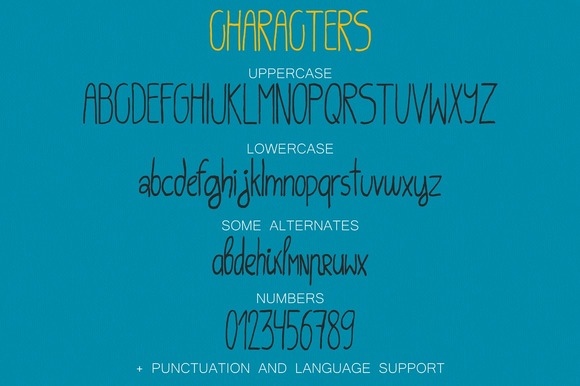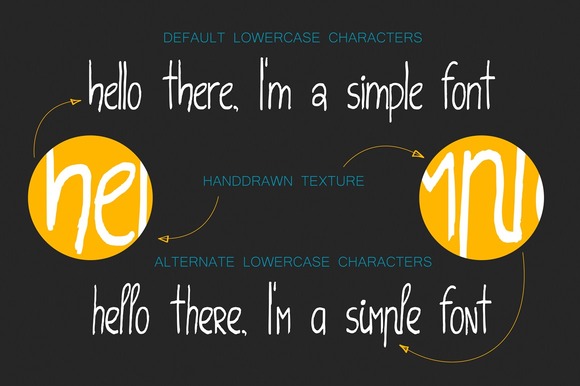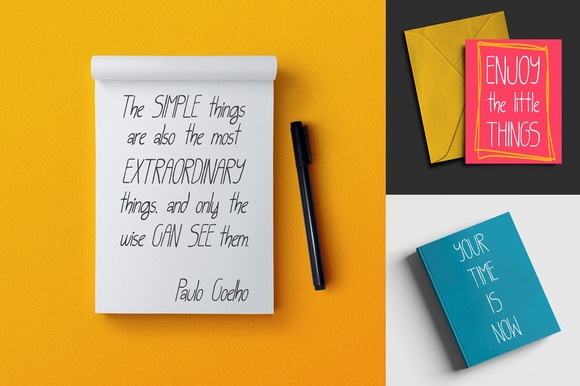
Introduction to Prosto Font
Have you ever stumbled upon a beautifully designed project that made you stop and take a closer look? Maybe it was a greeting card with a handwritten message that added a personal touch, or a restaurant menu with a font that screamed ‘unique’. For designers, those moments are a treasure trove of inspiration, and the Prosto Font is one such gem.
Named after the Russian word ‘Simply’ (Prosto), this free download font is a high-quality design resource that’s perfect for any creative project that requires a touch of personality. From greeting cards and invitations to restaurant menus and advertising booklets, the Prosto Font is a versatile choice that can elevate your designs to the next level.
With its simple handwritten sans serif style and PUA encoded alternates, this font is a valuable addition to any designer’s toolkit. And the best part? It’s available for free download, making it an accessible design resource for anyone looking to add a creative touch to their projects.
Key Features of Prosto Font
- High-quality design resource for creative projects, offering a unique and stylish look.
- Features a transparent background, allowing for seamless integration with any design element.
- Perfect for use in graphic design, digital art, and other creative projects where a high-quality font is essential.
Honest Review: Prosto Font
I recently came across the Prosto Font, and I must say it’s a great addition to my design resource library. As a designer, I’m always on the lookout for high-quality fonts that can elevate my creative project. The Prosto Font definitely fits the bill.
What works well: ✨ The font is highly versatile, making it perfect for various design projects, from logos to digital products. The transparent background option is a nice touch, allowing for seamless integration with other design elements. I also appreciate the fact that it’s available for free download, making it a valuable resource for designers of all levels.
However, there are a few limitations: ⚠️ The font may not be as suitable for complex typography projects, as it can become difficult to read at smaller font sizes. Additionally, some users may find the font a bit too simple, lacking the sophistication of more ornate fonts.
Overall, I’m impressed with the Prosto Font. It’s a solid choice for designers looking for a high-quality, easy-to-use font. While it may not be perfect, its versatility and free download option make it a valuable addition to any design resource library.
- Highly versatile font suitable for various design projects
- Transparent background option for seamless integration
- May not be suitable for complex typography projects
- Some users may find the font too simple
Prosto Font
Prosto Font is a versatile and free download design resource ideal for creative projects. Its high-quality transparent background makes it perfect for various applications.
Tips for Getting the Most Out of Prosto Font
To maximize the benefits of Prosto Font, experiment with different font sizes, colors, and styles to find the perfect combination for your design. You can also use it in combination with other design elements to create a unique look.
Prosto Font is suitable for a wide range of creative projects, including logos, brochures, business cards, and presentations. Its transparent background makes it perfect for overlaying on images or using as a design element in itself.
Alternatives to Prosto Font
Montserrat is a popular sans-serif font suitable for creative projects, especially those requiring a modern and sleek design. It is available for free download and offers a transparent background, making it ideal for logos and branding materials. When to use: For modern, urban designs and websites that require a clean and minimalist look. Compared to Prosto Font: Montserrat has a more geometric and modern feel, whereas Prosto Font has a more traditional and elegant appearance.